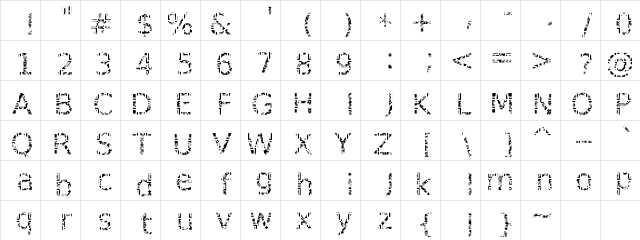
AGLRY 1 Regular
Regular · Rainkarnichi Aydi Rainkarnichi ·
Foundry Rainkarnichi
DesignerAydi Rainkarnichi
Design Context for AGLRY 1 Typeface
AGLRY 1 takes a measured approach to typography — its balanced proportions and neutral character make it a reliable workhorse for both digital and print work.